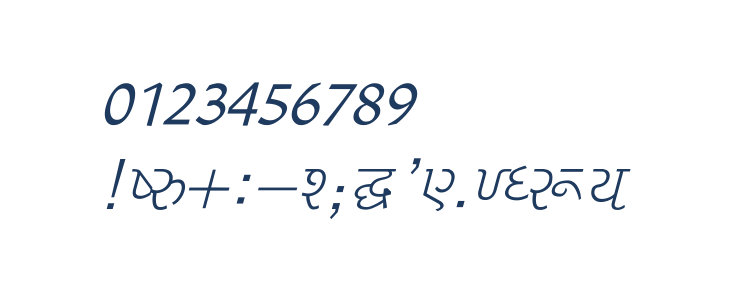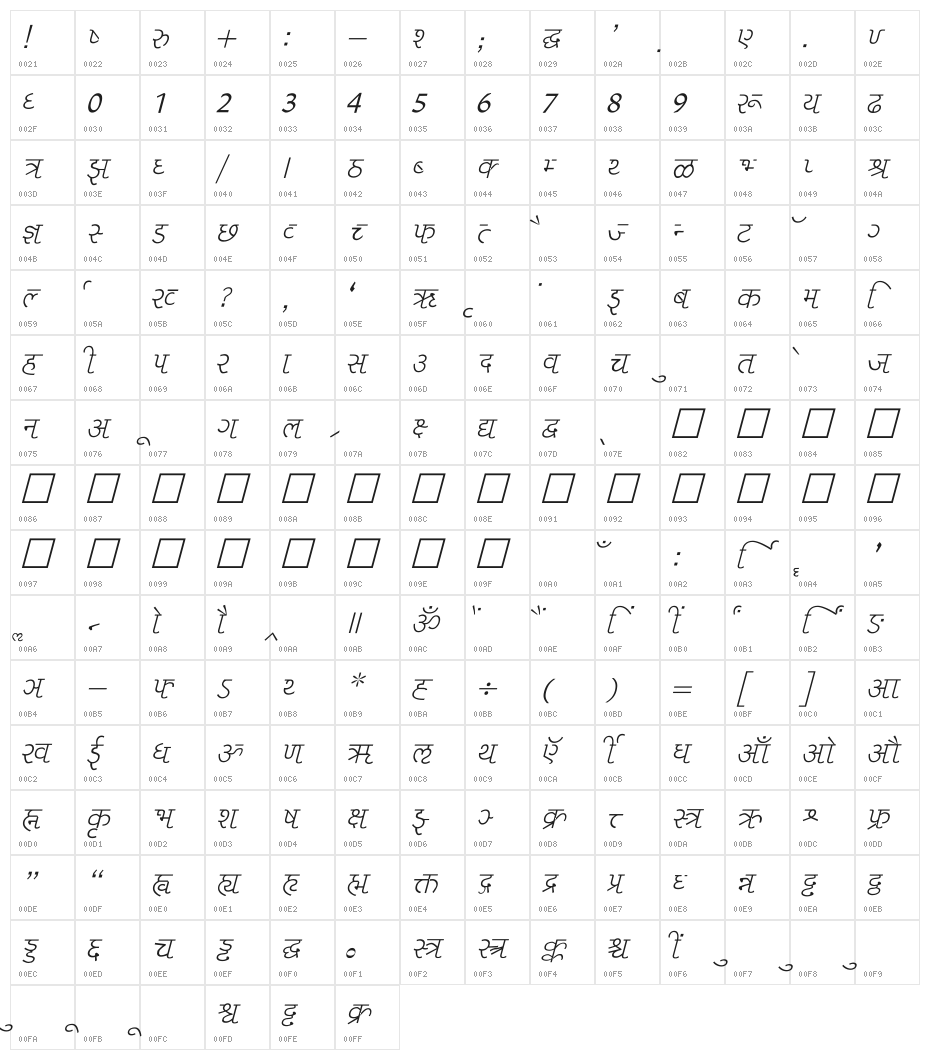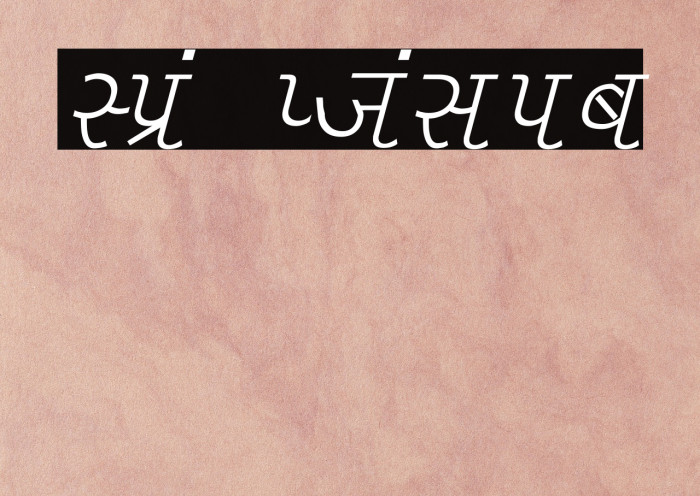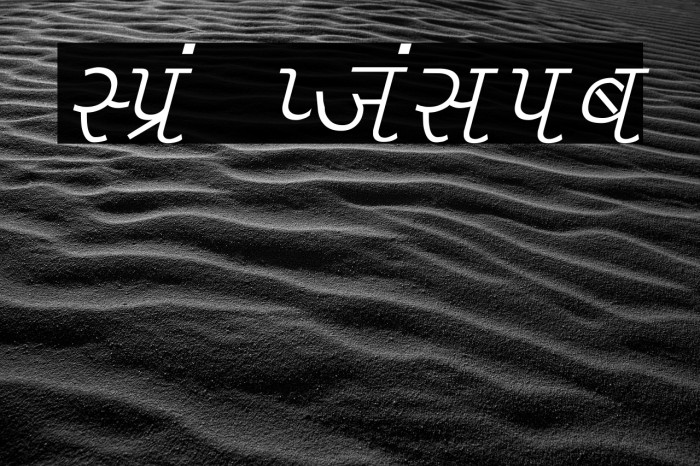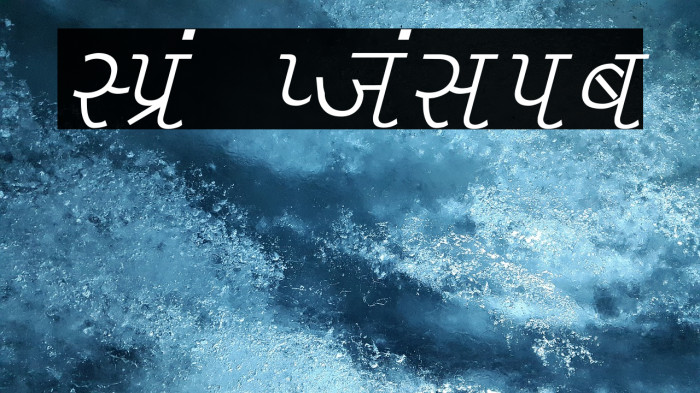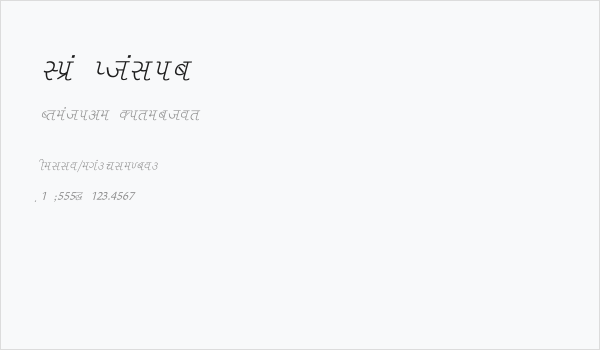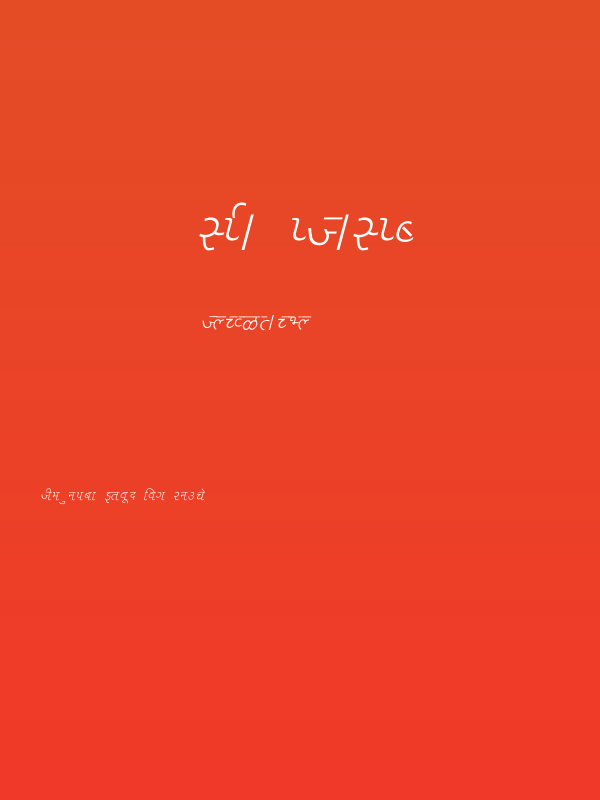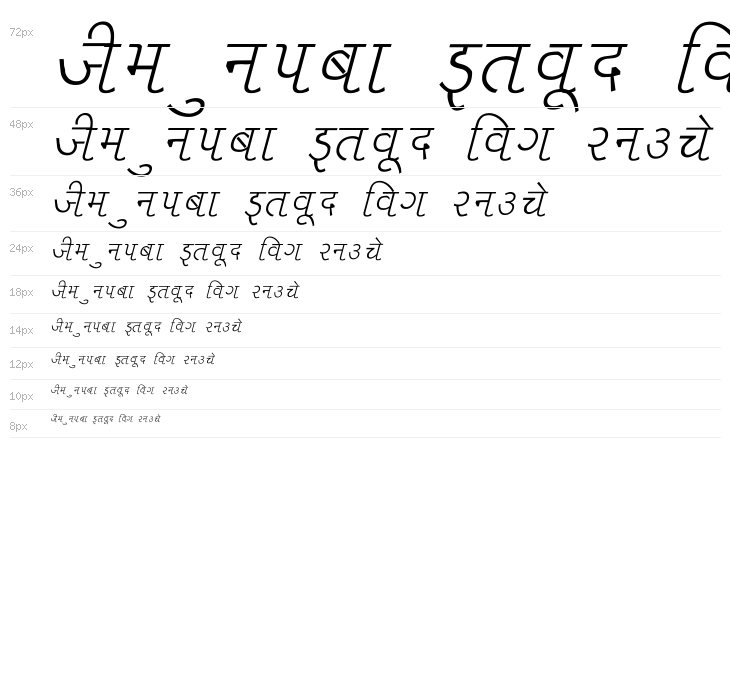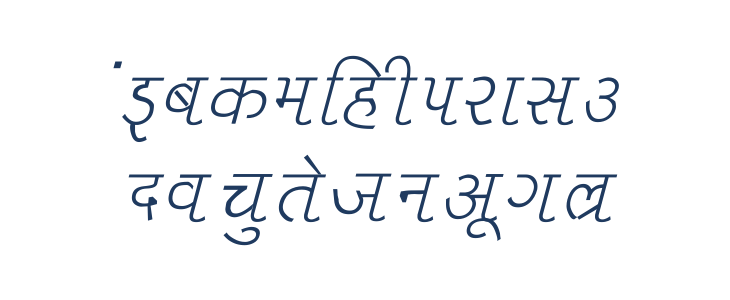
Liza Italic Font
Liza Italic Description
This font features a distinct italic style with a flowing, cursive appearance. The characters exhibit a moderate slant, enhancing the elegant and dynamic feel. The strokes are smooth and consistent, with a medium contrast between thick and thin lines, contributing to its readability. The spacing between characters is normal, allowing for clear legibility while maintaining a stylish look. The font includes a full set of numerals and a variety of punctuation marks, making it versatile for different uses.
| Use Case | Invitations, Branding, Artistic projects |
| Proposed Projects | Ideal for wedding invitations, elegant branding, personal stationery, and artistic projects. |